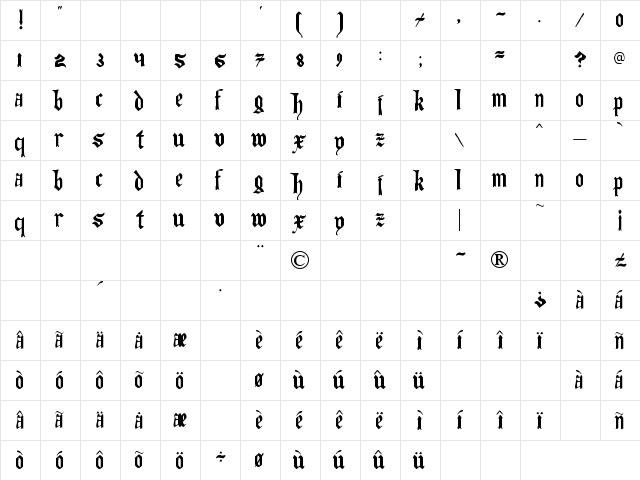
The Art of Illuminating Regular
Design Context for The Art of Illuminating Typeface
The Art of Illuminating is a composed and adaptable typeface that performs quietly and consistently across a wide range of design contexts.